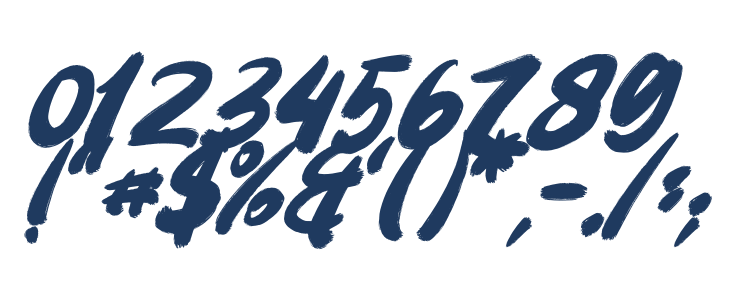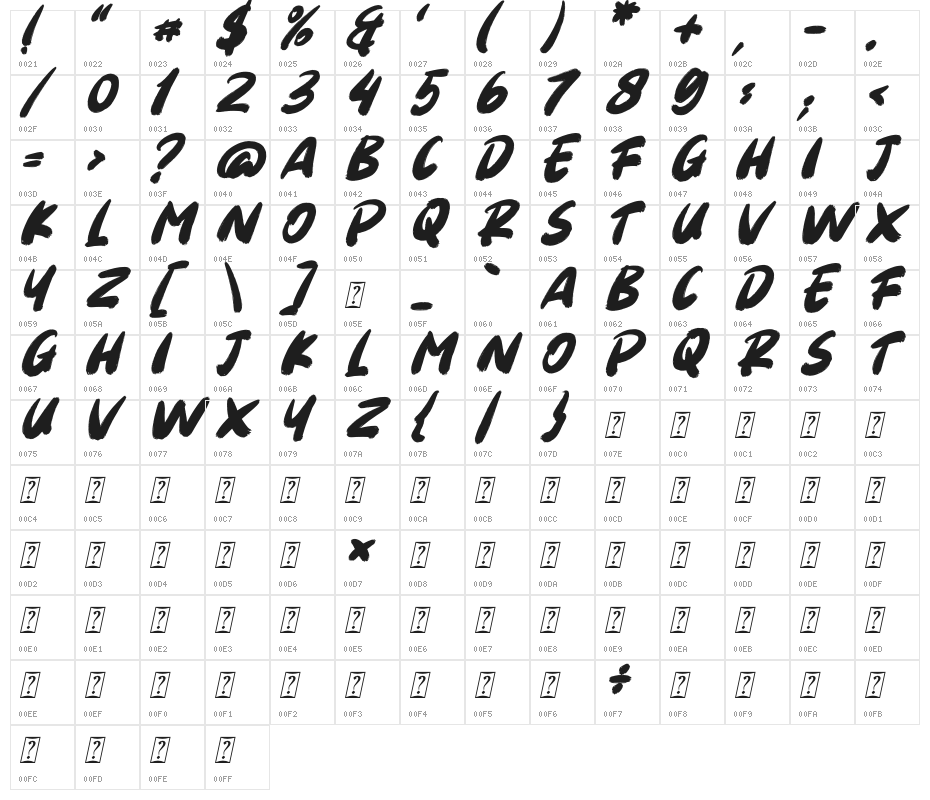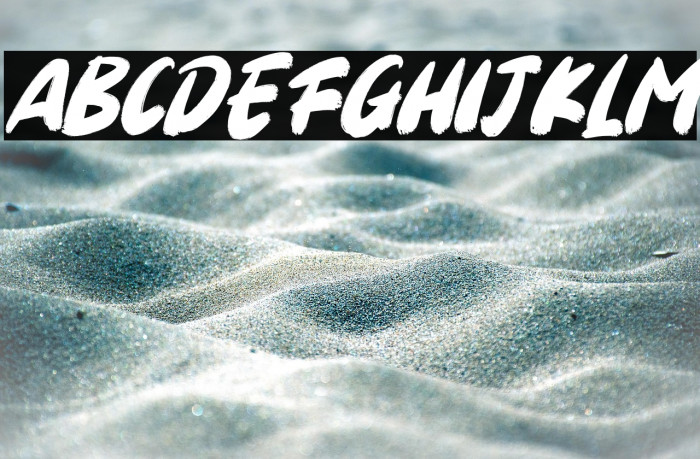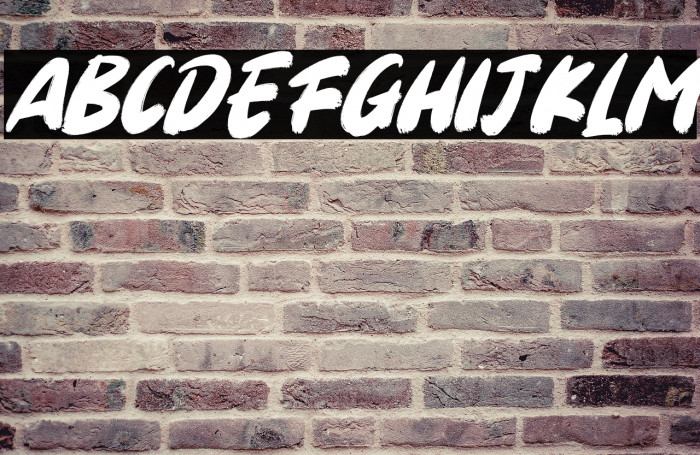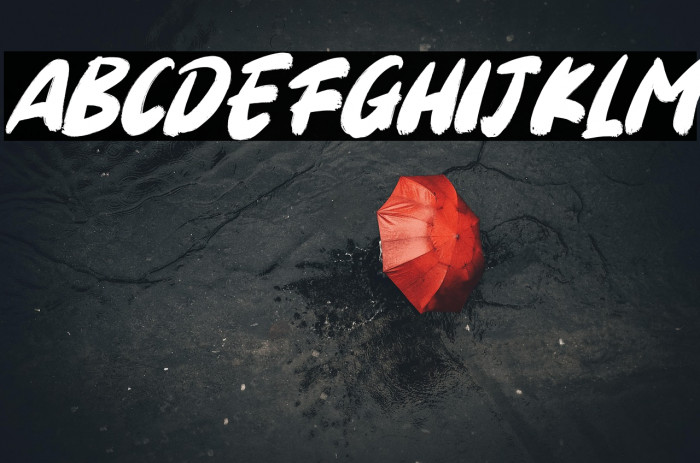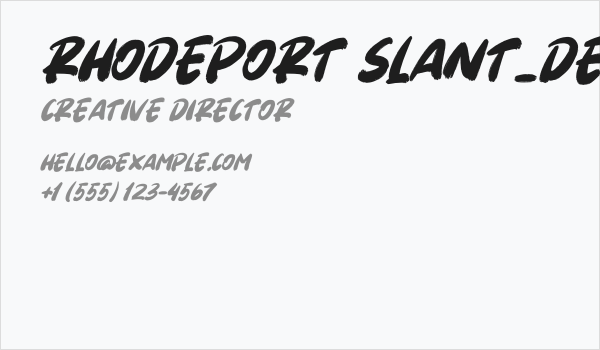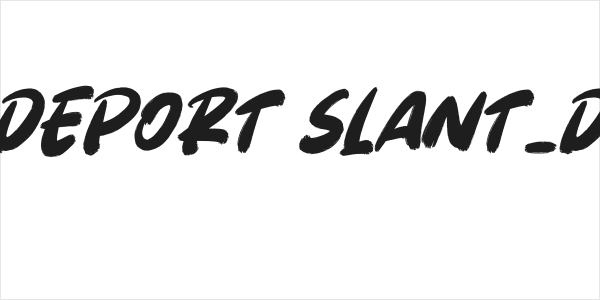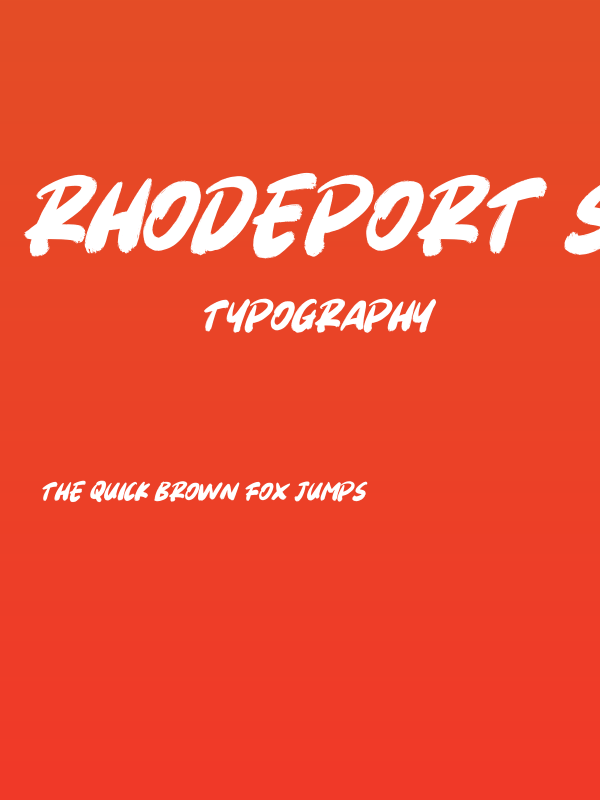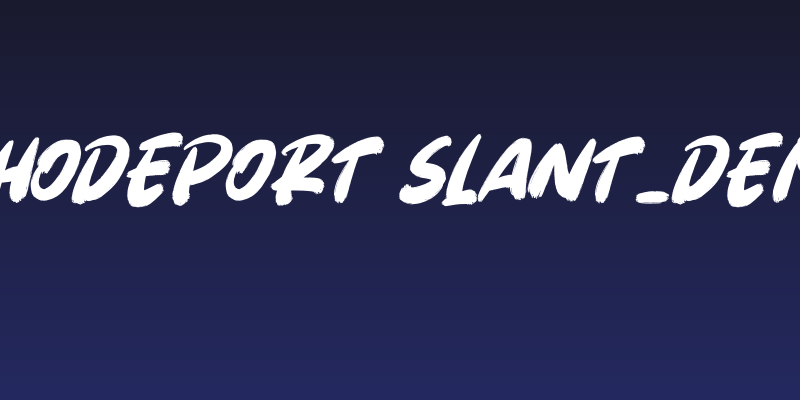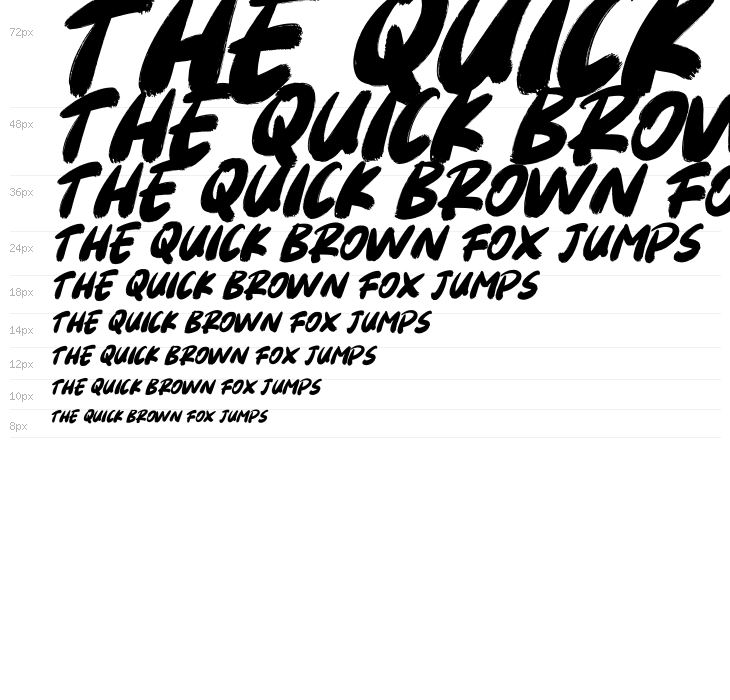
Rhodeport Slant_DEMO Font
Rhodeport Slant_DEMO Description
This font features a bold and dynamic script style with a pronounced slant, giving it a sense of movement and energy. The characters are thick and brush-like, with a hand-painted appearance that adds a personal and artistic touch. The uppercase and lowercase letters maintain a consistent flow, while the numerals and special characters complement the overall design. The strokes are broad and expressive, creating a strong visual impact. This font is ideal for projects that require a bold statement or a creative flair.
| Proposed Projects | Ideal for branding, posters, headlines, and creative projects that require a bold and artistic touch. |